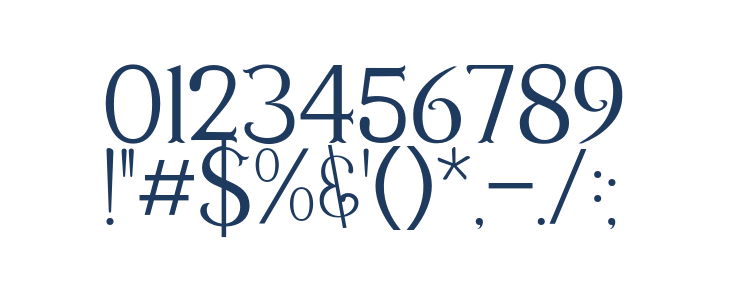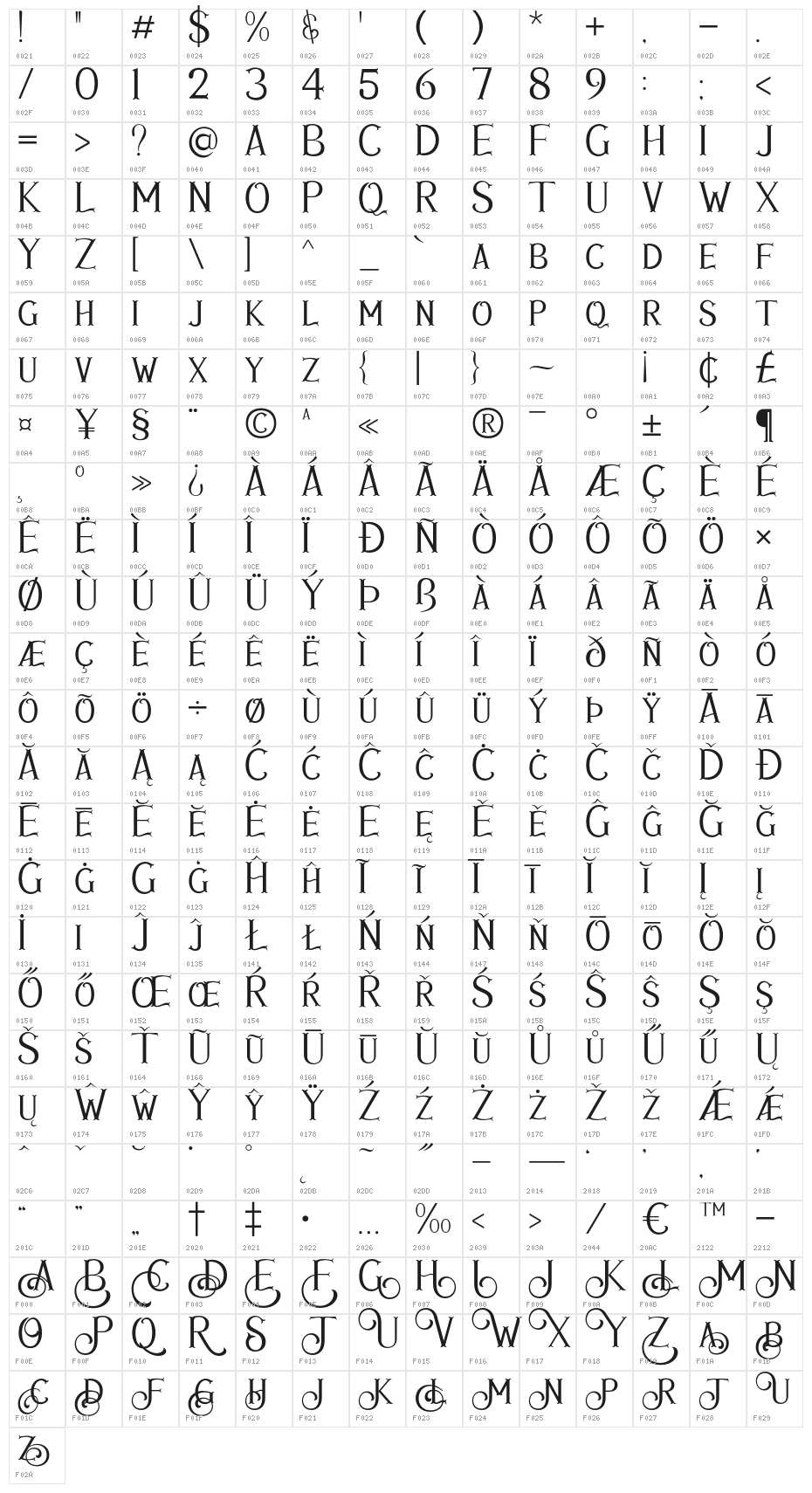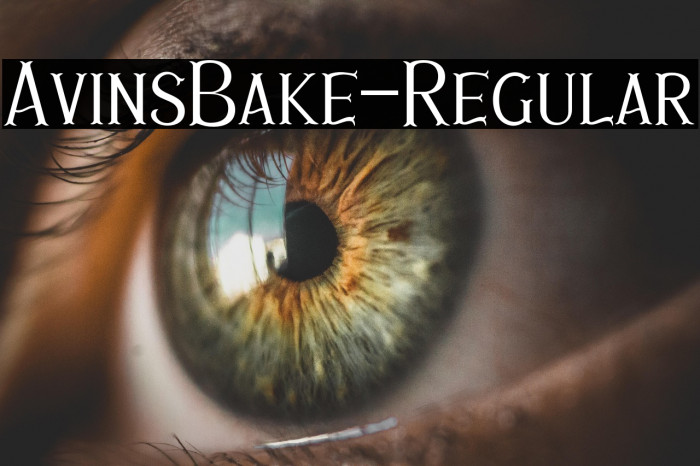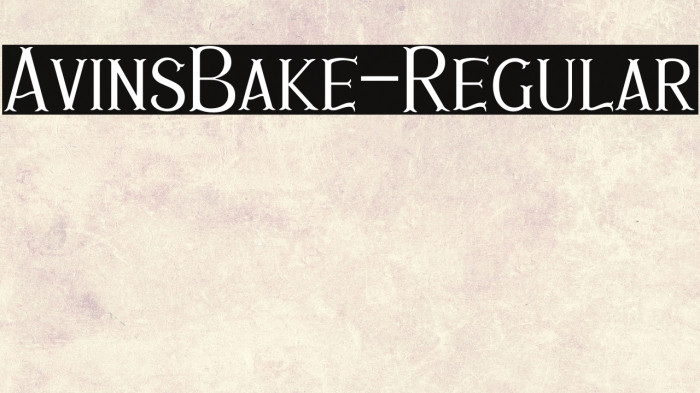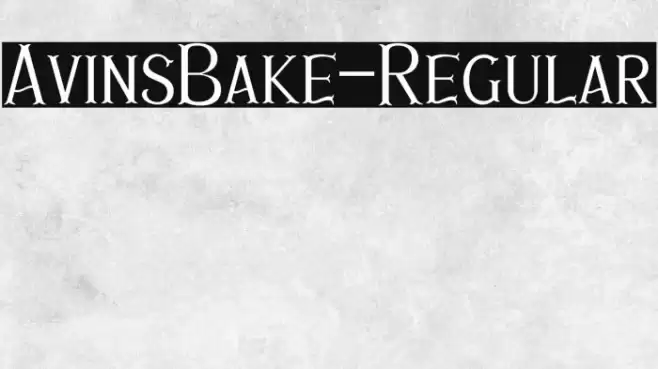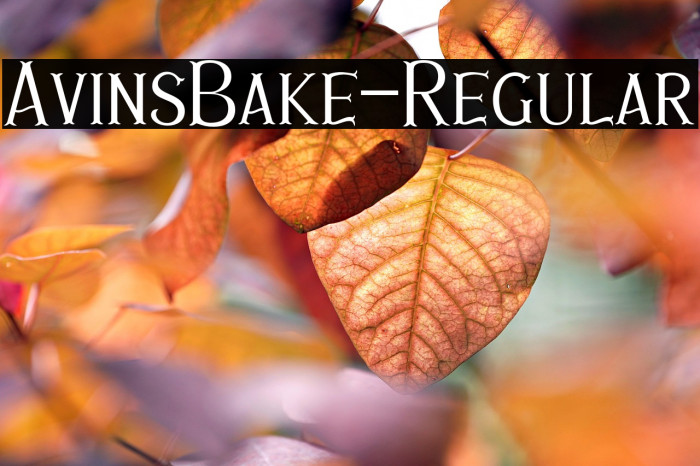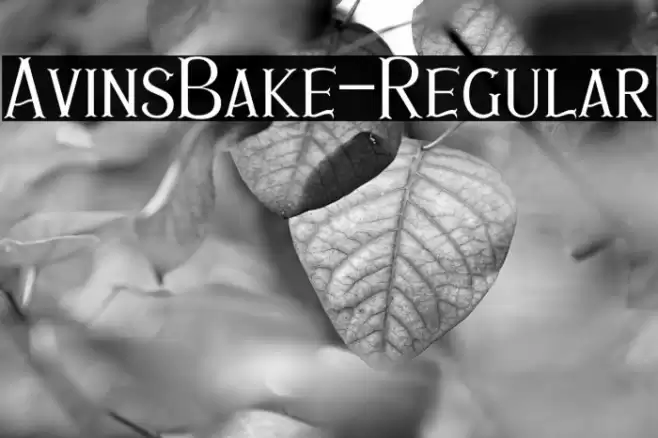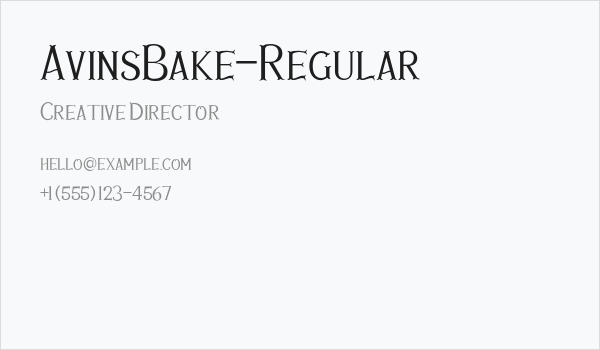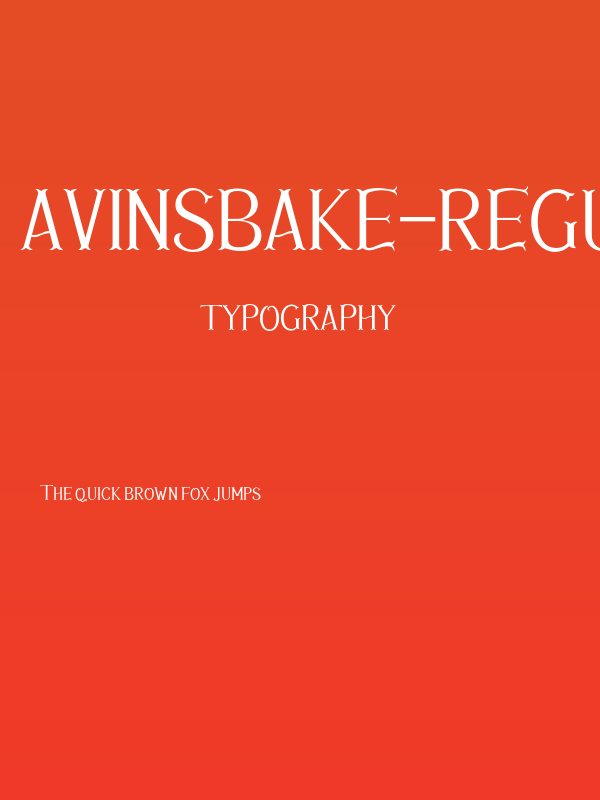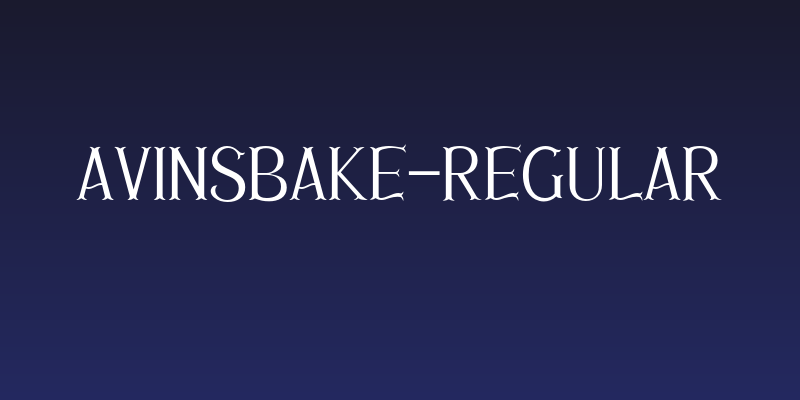
AvinsBake-Regular Font
AvinsBake-Regular Description
This font features a unique blend of classic and modern elements, characterized by its sharp serifs and elegant curves. The uppercase letters exhibit a strong presence with their tall, narrow forms and pronounced serifs, creating a sense of sophistication and authority. The lowercase letters maintain a consistent style, with smooth transitions and a slightly condensed appearance. Numerals are bold and clear, ensuring readability while maintaining the font's distinct style. Special characters are thoughtfully designed, complementing the overall aesthetic. The font's high contrast between thick and thin strokes adds to its visual appeal, making it suitable for a variety of design applications.